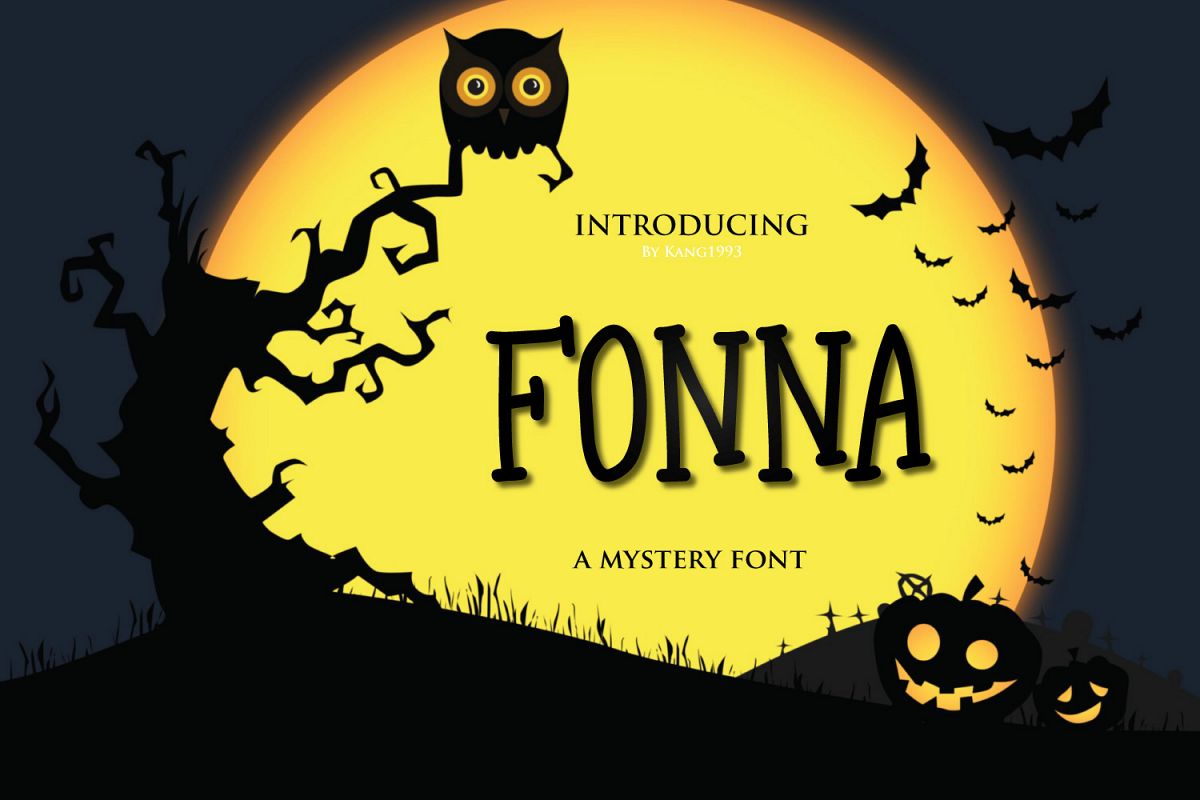
Fonna is a fun, quirky handwritten font. This playful
sans-serif will look so cute on your logo's, cards, invites, and any other fun
projects you are working on. This font also works perfectly when pairing it
with a script font. This font is also suitable for use with something that
smelled mystery like posters of magic, ghosts, etc.